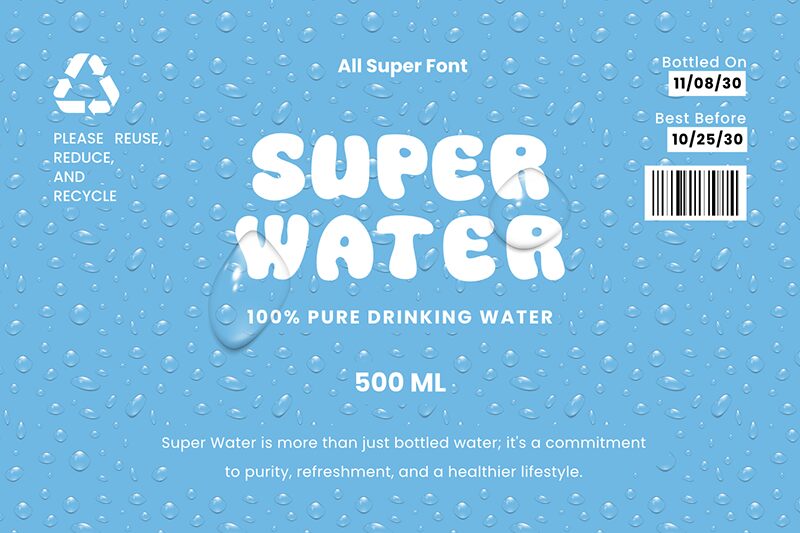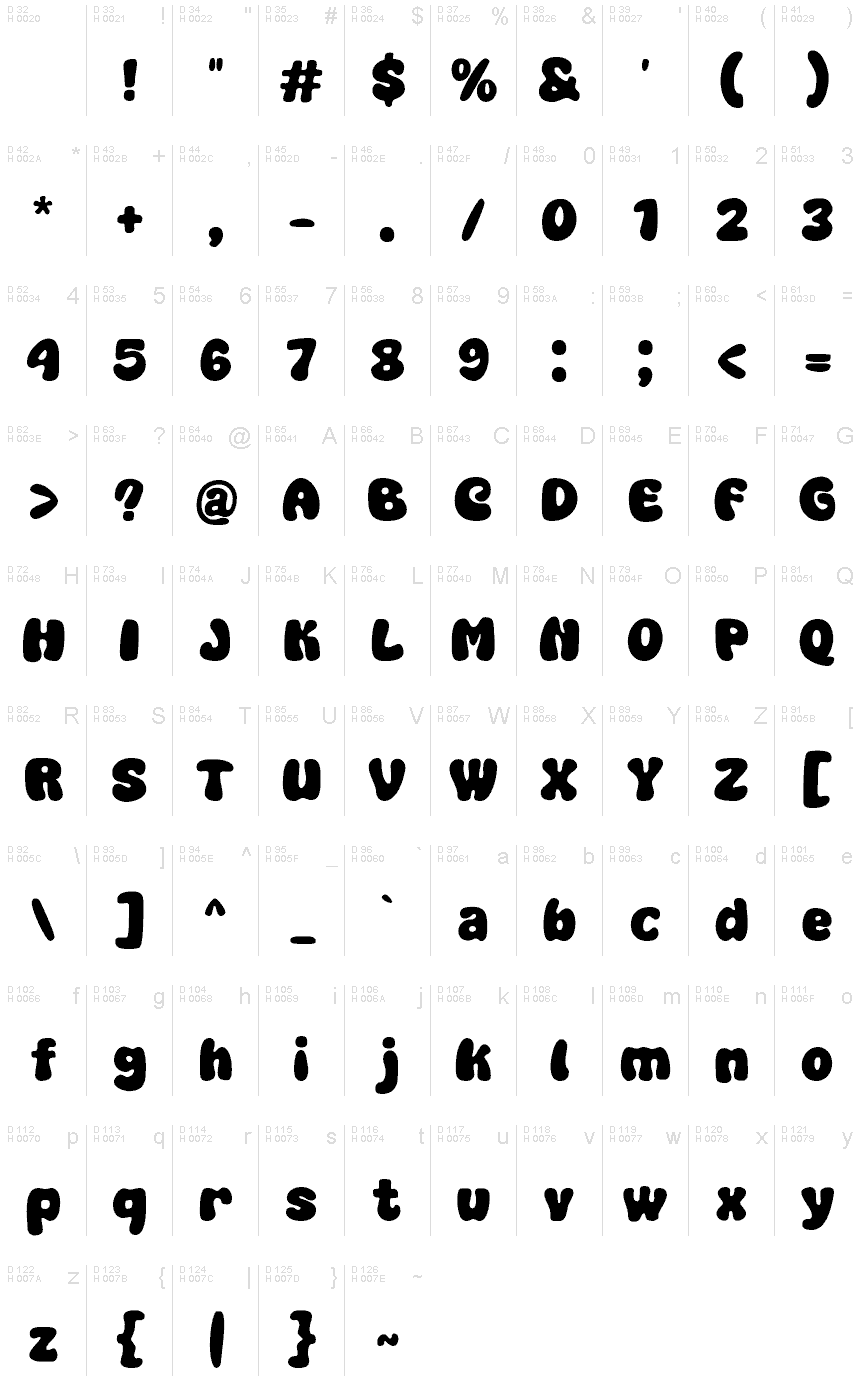
Super Water
Super Water font by fsuarez913 is a display typeface characterized by its playful cartoon style and bold presence. Its rounded edges, uniform structure, and smooth curves create an eye-catching appearance that stands out on any medium. The font carries a whimsical retro vibe with noticeable influences from 1970s design trends, making it both nostalgic and timeless. With no excessive details in form of serifs or inconsistent curves, Super Water always achieves spectacular results when used creatively.